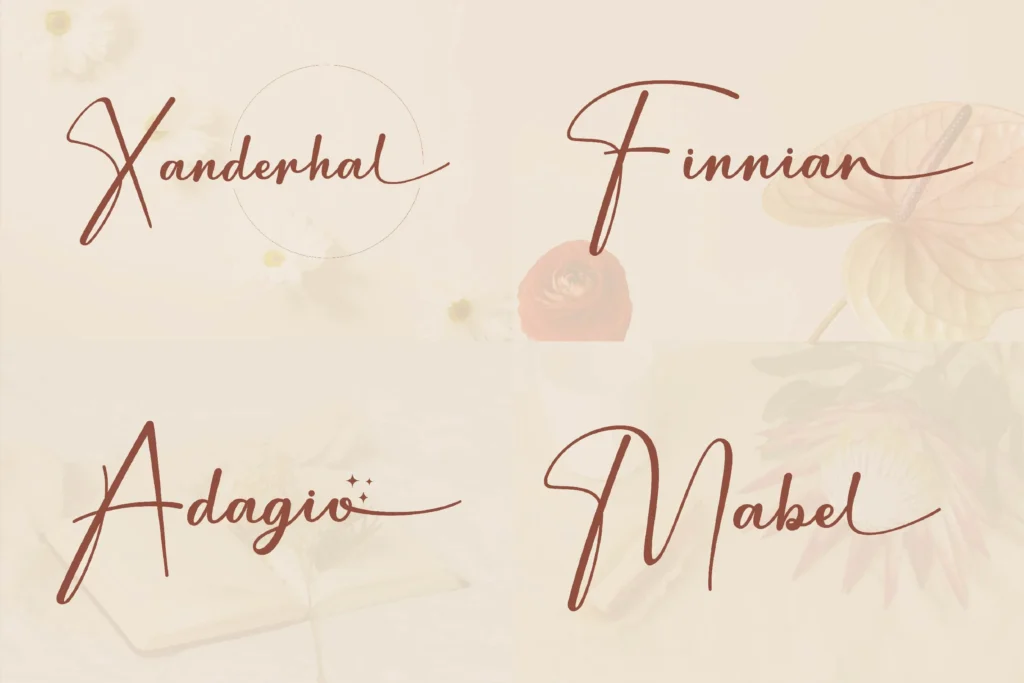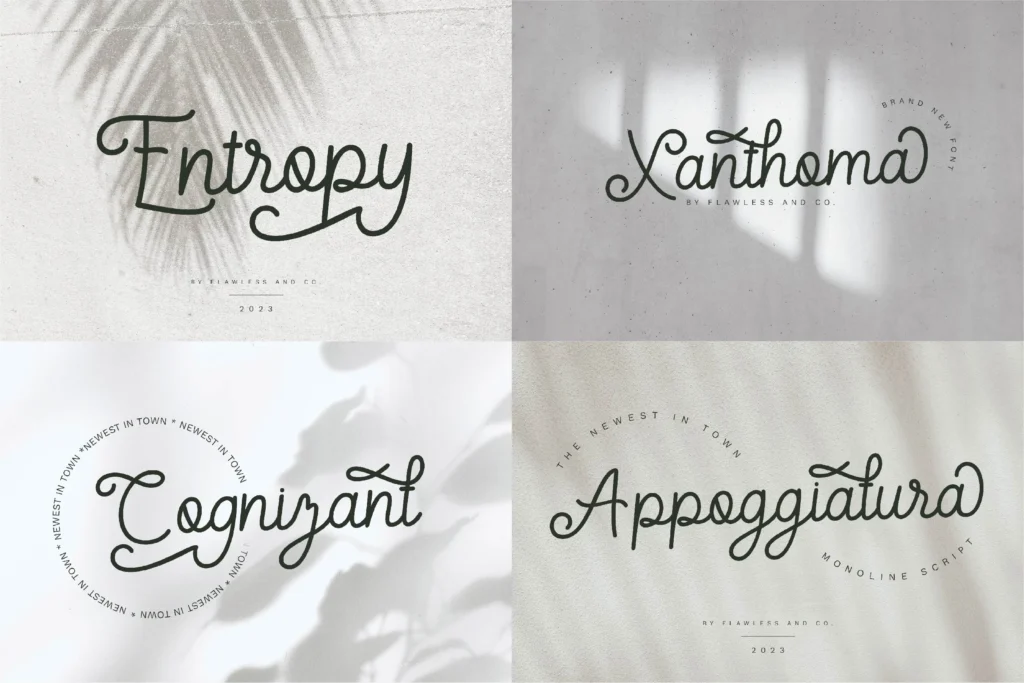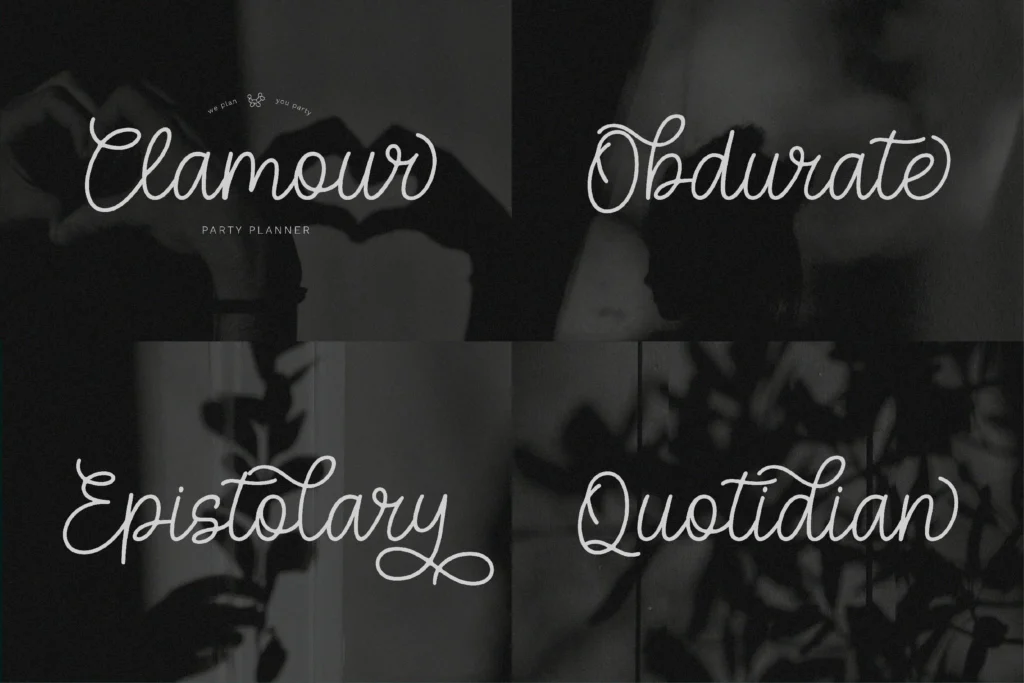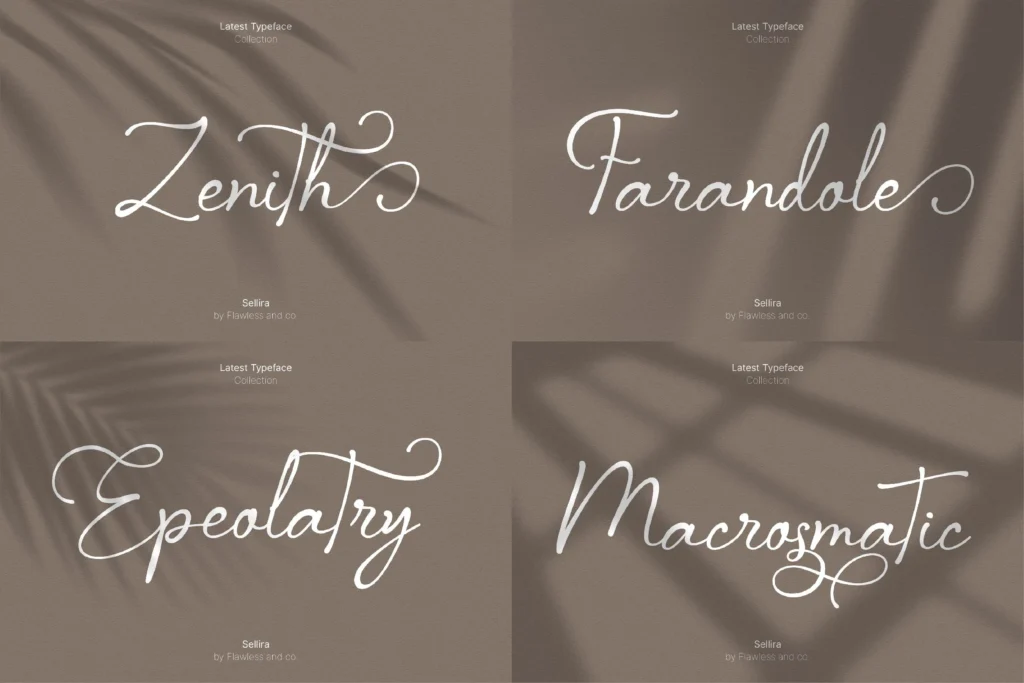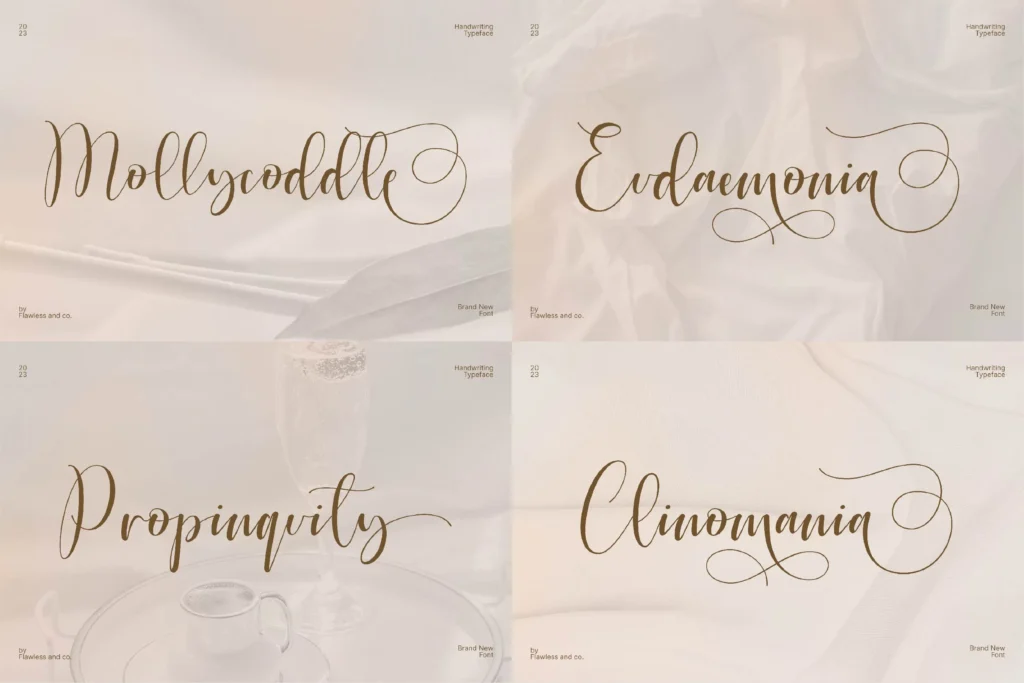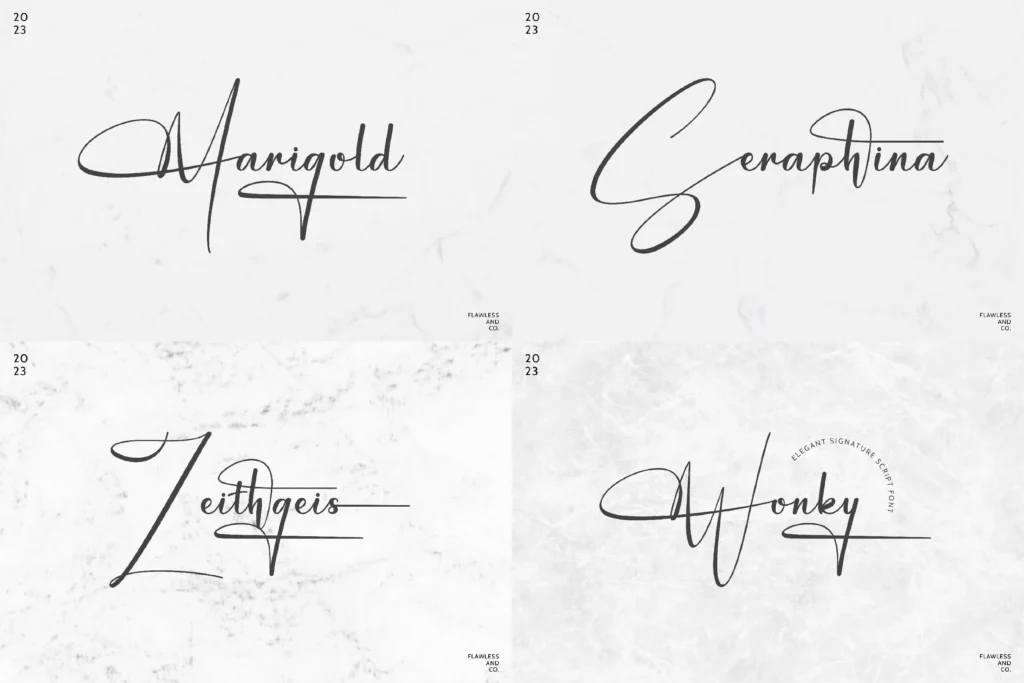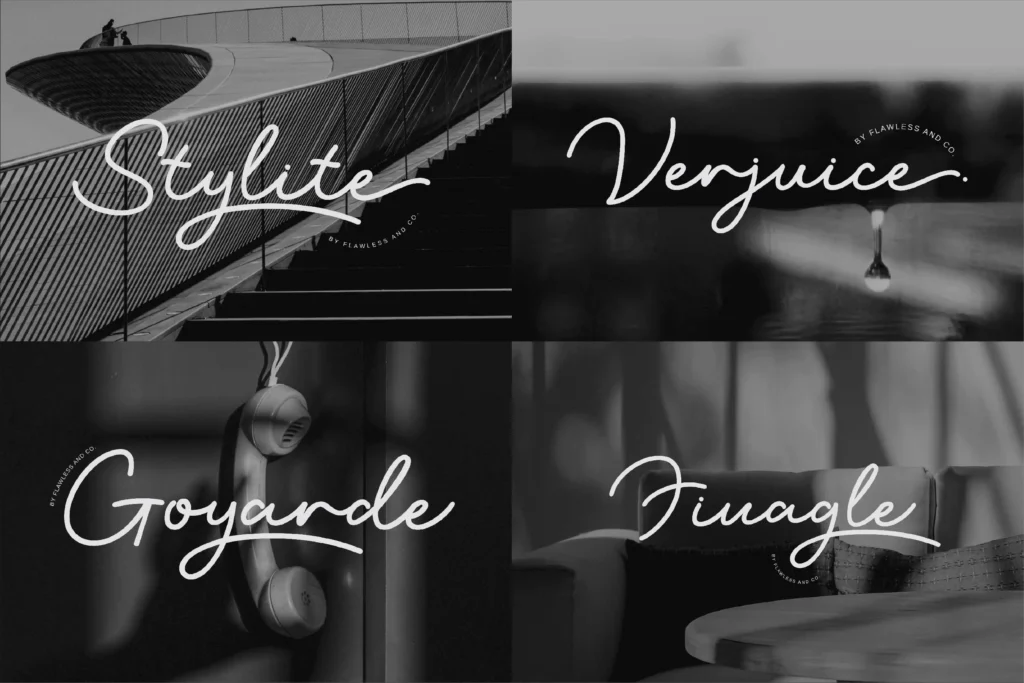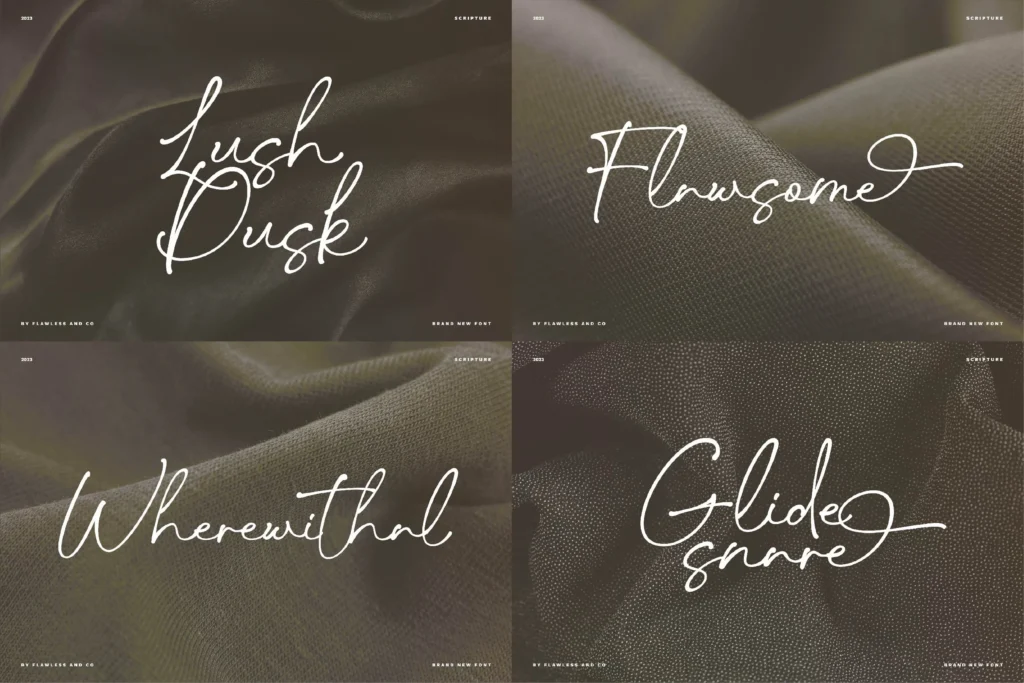
Introducing the “Elegant Script Font Bundle” — a collection of ten exquisite script fonts that redefine elegance in every stroke. This exclusive bundle is a celebration of sophistication, offering a diverse range of signature-style fonts crafted to elevate your designs.
This bundle include 10 high quality funny font. Suitable for any graphic designs such as branding materials, t-shirt, print, business cards, logo, poster, t-shirt, photography, quotes .etc
Multilingual Uppercase alphabet A-Z Lowercase alphabet a-z Alternate Character Numbers 0-9 Some punctuation
With this font bundle, you’ll have everything you need to elevate your designs and stand out from the crowd. Try mixing and matching the fonts to create unique combinations and add even more visual interest to your projects. Get This Funny Font Bundle today and take your designs to the next level!